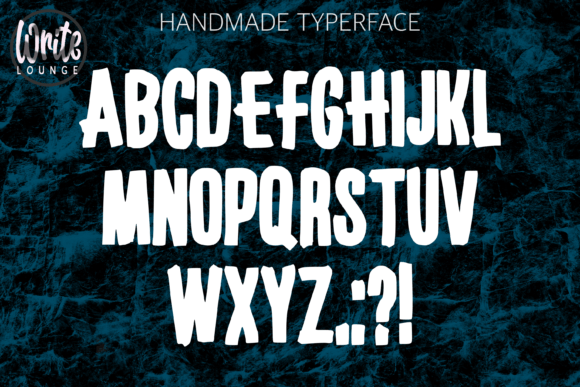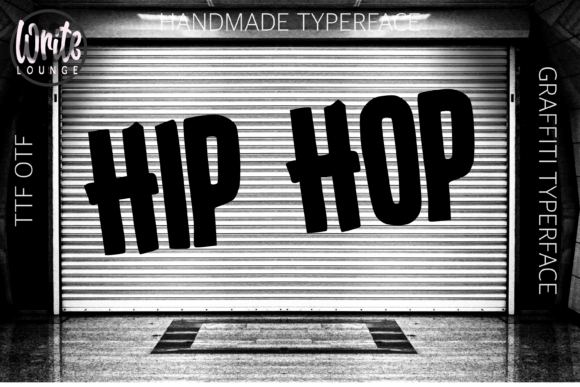
Introducing Flat Brusher Font: The Ultimate Tagging Companion for Vandals, Hip-Hop, Graffiti, and Street Art Enthusiasts
Are you a fan of street art, graffiti, or hip-hop culture? Do you love the edgy, bold, and expressive style of tagging fonts? Look no further than Flat Brusher Font, the perfect companion for vandals, graffiti artists, paint roller enthusiasts, and street art aficionados. In this article, we’ll dive into the world of Flat Brusher Font, exploring its features, benefits, and uses in various projects.
What is Flat Brusher Font?
Flat Brusher Font is a unique and versatile tagging font designed specifically for creative projects that require a bold, edgy, and urban feel. Its distinctive style is inspired by the streets, making it an ideal choice for vandals, hip-hop enthusiasts, graffiti artists, and street art lovers. With Flat Brusher Font, you can add a touch of authenticity and attitude to your designs, setting them apart from the rest.
Key Features of Flat Brusher Font
- Bold and Edgy Style: Flat Brusher Font boasts a bold, edgy, and expressive style that’s perfect for making a statement.
- Urban Feel: The font’s design is inspired by the streets, giving your projects an authentic urban feel.
- Versatile: Flat Brusher Font is suitable for a wide range of projects, from graffiti and street art to hip-hop and vandalism.
Uses of Flat Brusher Font
Flat Brusher Font is an incredibly versatile font that can be used in a variety of projects, including:
- Graffiti and Street Art: Add a touch of authenticity to your graffiti and street art projects with Flat Brusher Font.
- Hip-Hop and Music: Use Flat Brusher Font to create bold, eye-catching designs for hip-hop and music-related projects.
- Vandalism and Tagging: Flat Brusher Font is perfect for vandals and taggers looking to create bold, edgy designs.
- Paint Roller and Stencil Art: The font’s bold style makes it ideal for paint roller and stencil art projects.
- Merchandise and Apparel: Use Flat Brusher Font to create striking designs for merchandise and apparel, such as t-shirts, hats, and bags.
Benefits of Using Flat Brusher Font
By using Flat Brusher Font, designers and crafters can benefit from:
- Unique and Bold Designs: Flat Brusher Font enables you to create unique, bold, and eye-catching designs that stand out from the crowd.
- Authentic Urban Feel: The font’s urban feel adds authenticity to your designs, making them perfect for street art, graffiti, and hip-hop projects.
- Easy to Customize: Flat Brusher Font is easy to customize, allowing you to experiment with different styles, colors, and effects.
| Font Name | Flat Brusher Font |
| Author | Writelounge |